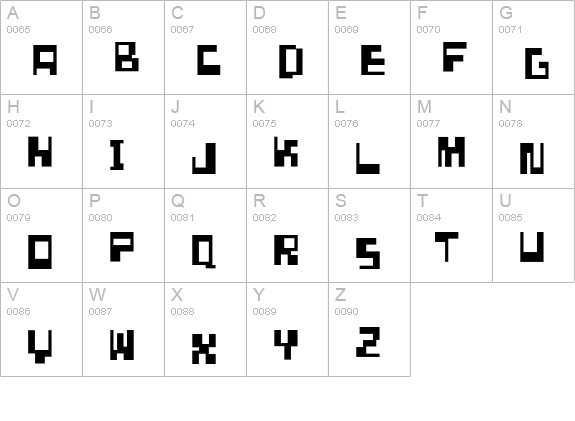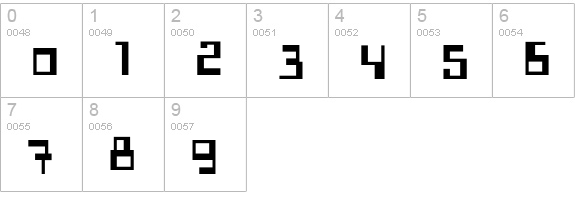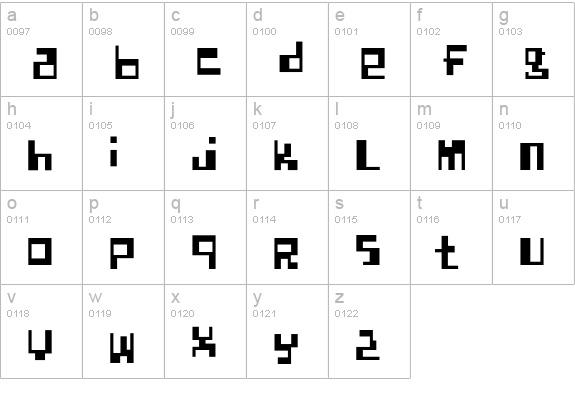
Quadrada Font Details
Introducing Quadrada, a beautifully crafted font that exudes elegance and sophistication. With its clean lines and crisp edges, Quadrada is the perfect choice for any project that requires a touch of modernity and professionalism. This versatile font is designed to make a statement, whether it's used in print or digital media. Its bold and distinctive letterforms capture attention and leave a lasting impression on the reader. Quadrada is ideal for branding, logo design, headlines, and any other creative endeavor that calls for a font with impact. What sets Quadrada apart is not just its stunning aesthetics, but also its accessibility. This font is freely available to download at FontsMarket.com, making it accessible to designers and creatives of all backgrounds. Embracing the belief that great design should be available to everyone, Quadrada offers a unique blend of quality and affordability. In addition to its stylish appearance, Quadrada is also highly legible, ensuring that your message is delivered with clarity and precision. Whether it's a magazine layout, a website design, or a social media post, Quadrada guarantees that your content will be effortlessly readable. With its extensive character set, Quadrada supports multiple languages, making it a global font that can be used on projects worldwide. Its versatility extends to various design styles, seamlessly adapting to both minimalist and elaborate compositions. So why wait? Experience the elegance and versatility of Quadrada today. Download this free font from FontsMarket.com and unlock a world of creative possibilities. Elevate your designs with the timeless beauty of Quadrada and let it speak volumes on your behalf.